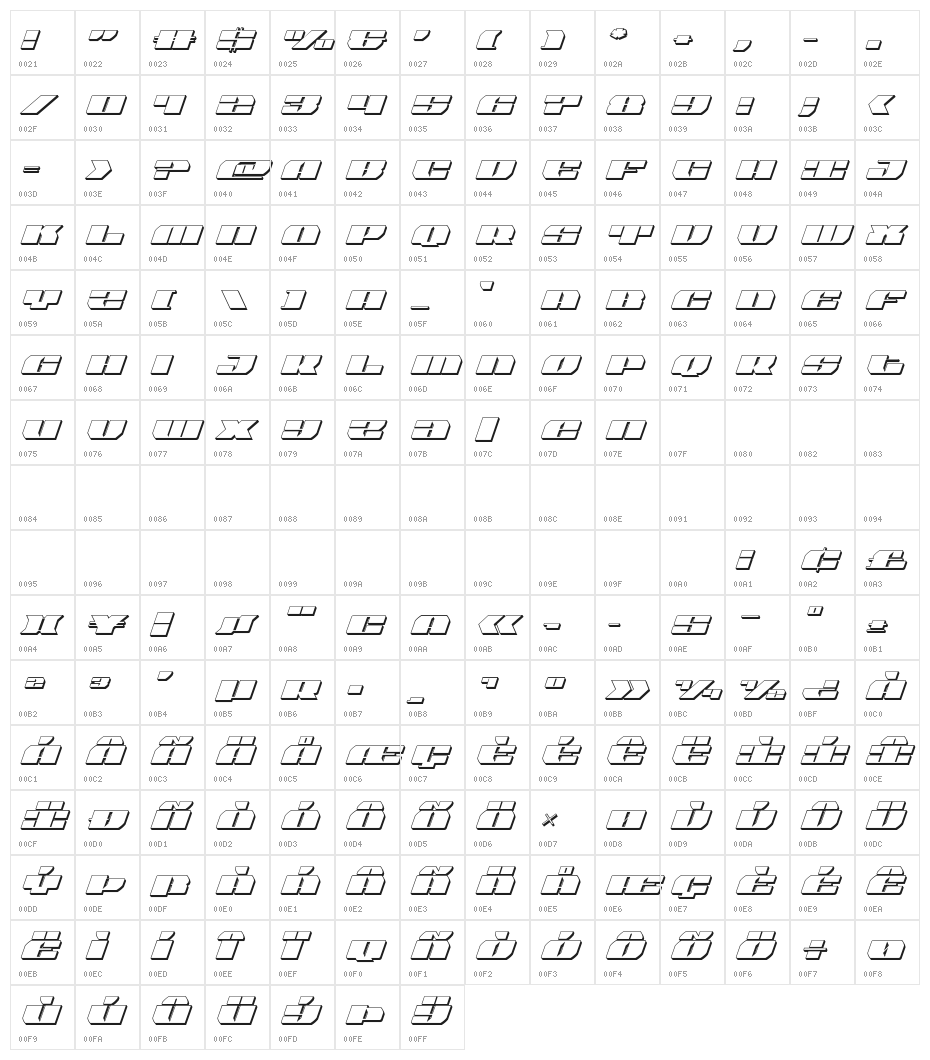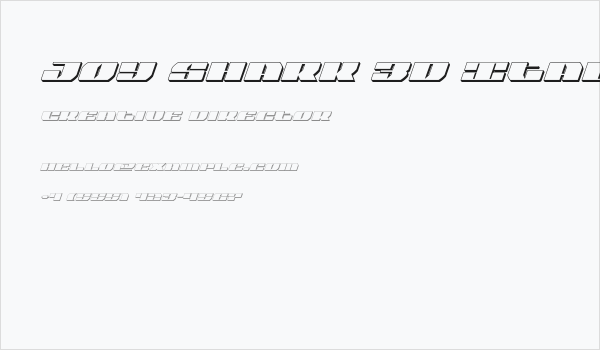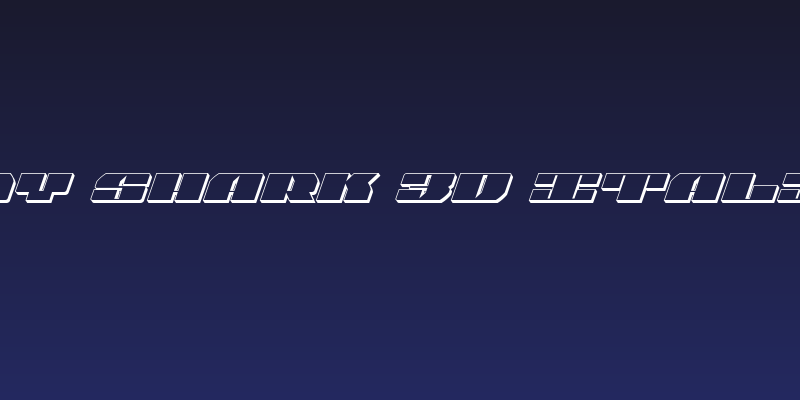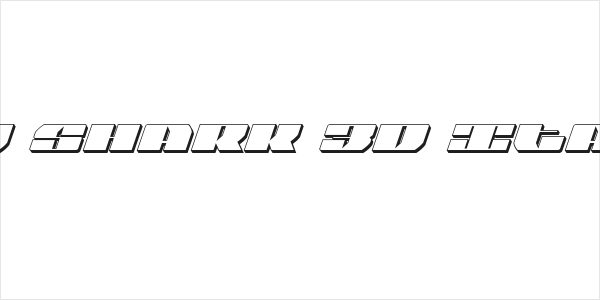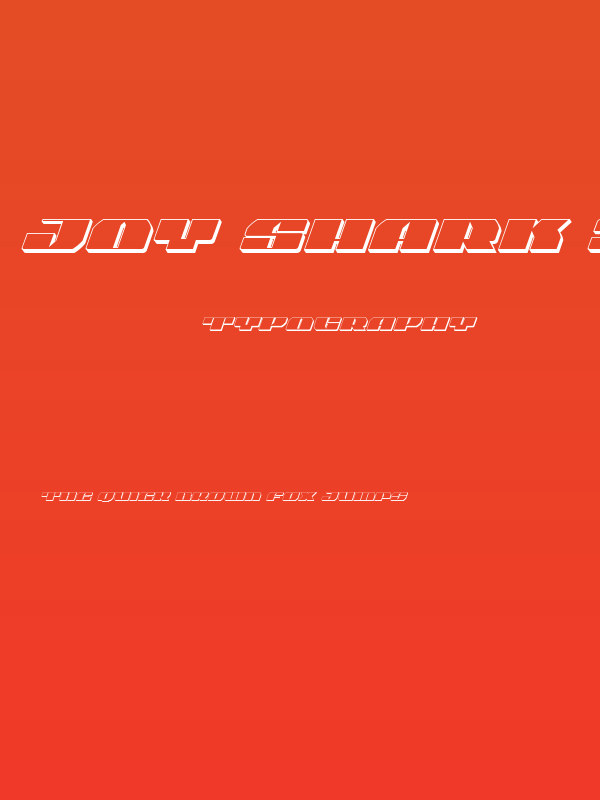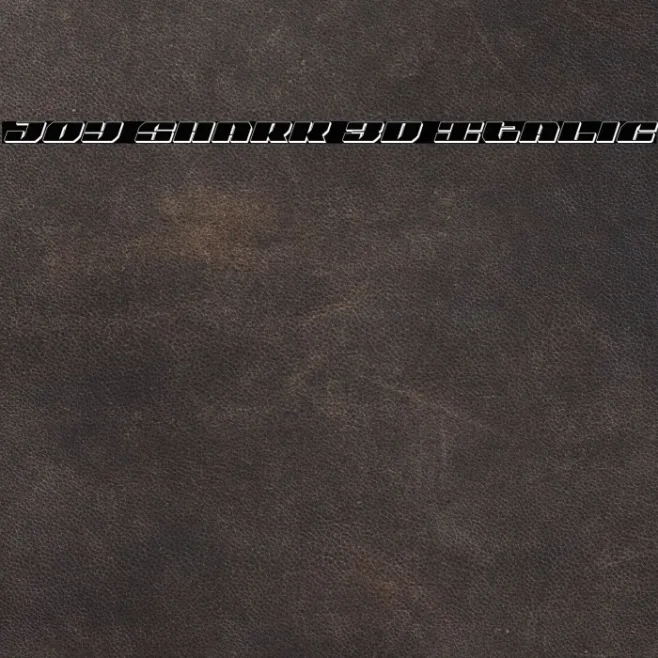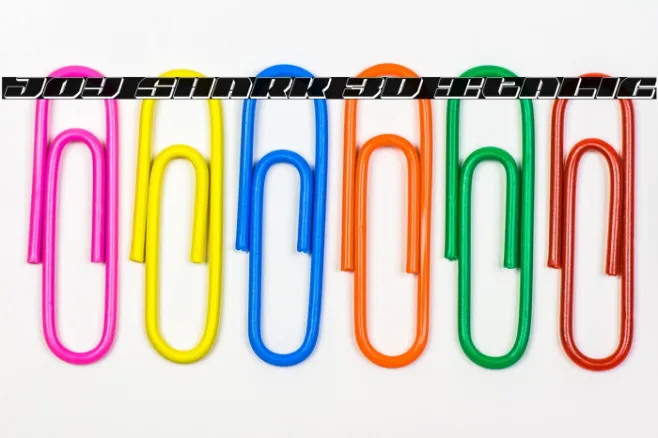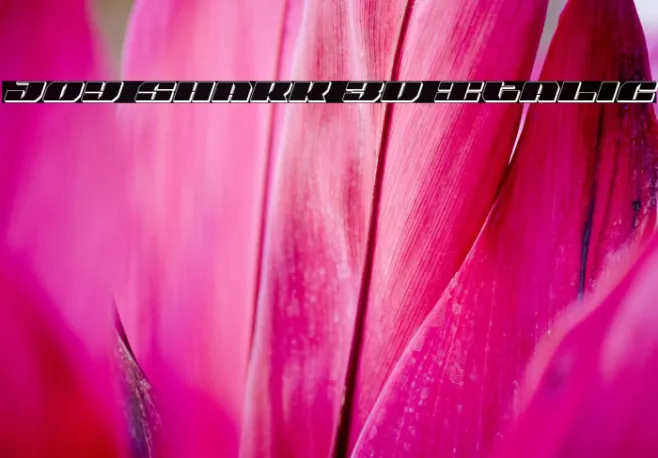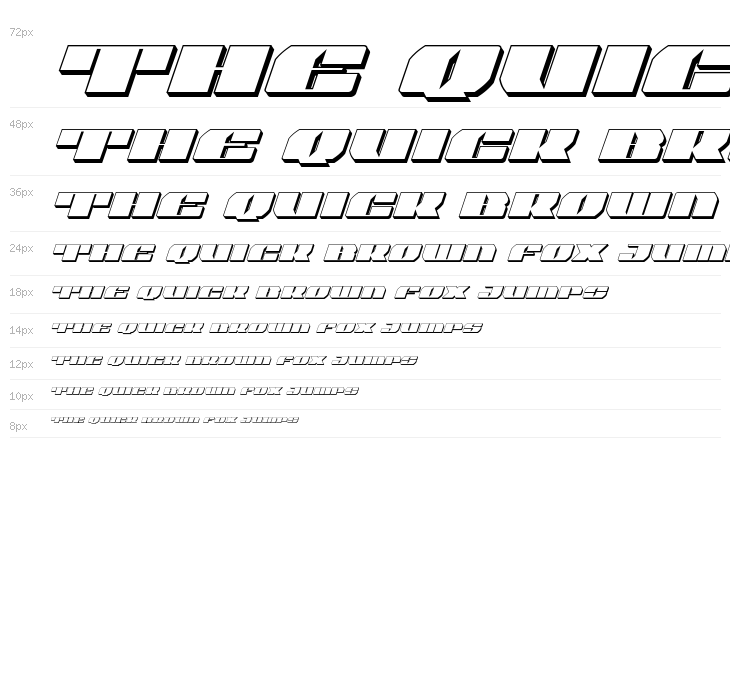
Joy Shark 3D Italic Font
Joy Shark 3D Italic Description
This font features a bold, three-dimensional design with an italic slant, giving it a dynamic and futuristic appearance. The characters are outlined with a thick border, enhancing their 3D effect. Each letter and number is constructed with sharp, angular lines, contributing to a modern and edgy style. The font maintains a consistent height across all characters, ensuring uniformity. The special characters are designed to match the boldness and style of the alphanumeric characters, making them suitable for attention-grabbing displays. The overall aesthetic is both playful and assertive, making it ideal for projects that require a strong visual impact.
| Proposed Projects | Ideal for video game titles, tech-related branding, futuristic posters, and any project needing a bold, modern look. |